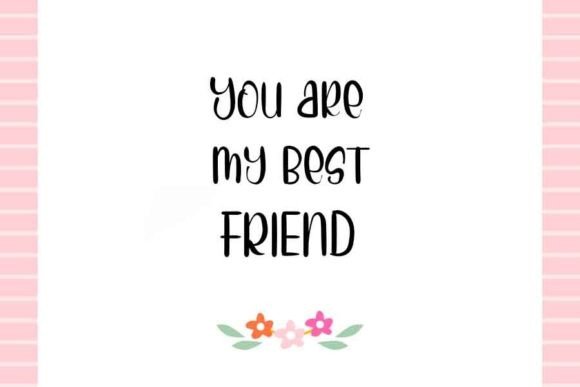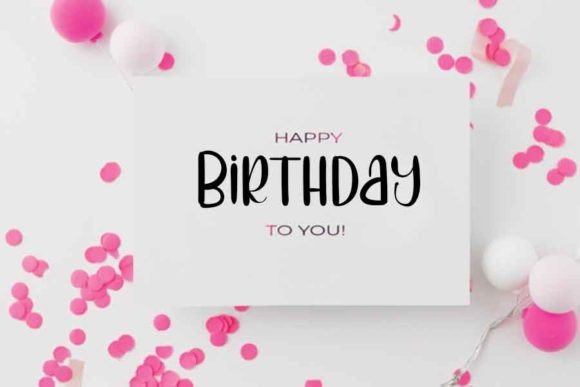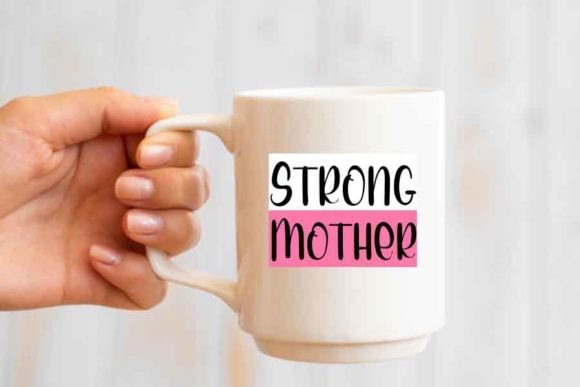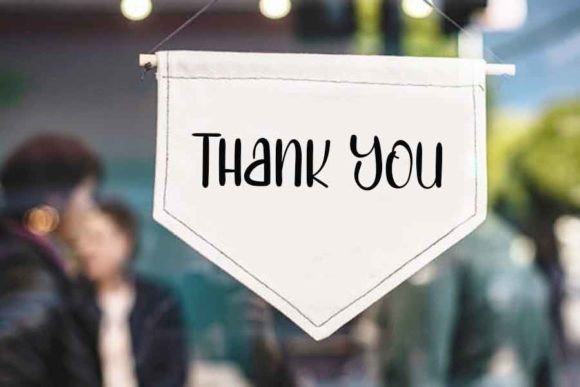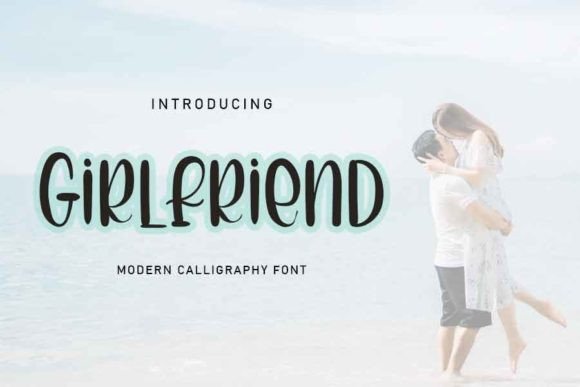
Girlfriend Font: The Perfect Addition to Your Design Arsenal
Are you tired of using the same old fonts for your design projects? Look no further than the Girlfriend Font, a cute and friendly handwritten font that’s sure to add a touch of personality to your work. In this article, we’ll dive into the world of Girlfriend Font and explore its features, uses, and benefits for designers and crafters alike.
What is Girlfriend Font?
Girlfriend Font is a playful and quirky handwritten font that’s perfect for a wide range of design projects. With its cute and friendly vibe, this font is sure to capture the attention of your audience and leave a lasting impression. Whether you’re working on a logo, branding, poster, or DIY project, Girlfriend Font is the perfect fit.
Features of Girlfriend Font
So, what makes Girlfriend Font so special? Here are just a few of its key features:
- Cute and Friendly: Girlfriend Font has a warm and approachable feel that’s perfect for designs that need a personal touch.
- Playful and Quirky: This font has a fun and playful vibe that’s sure to add some personality to your designs.
- Handwritten: Girlfriend Font is a handwritten font, giving it a unique and organic feel that’s perfect for crafty DIY projects.
- Versatile: This font is suitable for a wide range of design projects, from logos and branding to posters and social media graphics.
Uses for Girlfriend Font
So, what can you use Girlfriend Font for? The possibilities are endless! Here are a few ideas to get you started:
- Logos and Branding: Use Girlfriend Font to create a unique and memorable logo for your business or brand.
- Posters and Flyers: Add a touch of personality to your posters and flyers with this fun and playful font.
- DIY Projects: Girlfriend Font is perfect for crafty DIY projects, such as handmade cards, gift tags, and scrapbooking.
- Social Media Graphics: Use this font to create eye-catching social media graphics that will help you stand out from the crowd.
Benefits of Using Girlfriend Font
So, why should you choose Girlfriend Font for your design projects? Here are just a few benefits:
- Adds Personality: Girlfriend Font adds a touch of personality to your designs, helping you to stand out from the crowd.
- Easy to Read: This font is easy to read, even at small sizes, making it perfect for a wide range of design projects.
- Versatile: Girlfriend Font is suitable for a wide range of design projects, from formal to informal.
- Unique: This font has a unique and quirky feel that’s sure to capture the attention of your audience.
Tips for Using Girlfriend Font
Here are a few tips for using Girlfriend Font in your design projects:
- Use it Sparingly: Use Girlfriend Font sparingly to add a touch of personality to your designs.
- Pair it with Other Fonts: Pair Girlfriend Font with other fonts to create a unique and interesting contrast.
- Have Fun: Most importantly, have fun with Girlfriend Font! This font is all about adding a touch of personality to your designs, so don’t be afraid to get creative.
In conclusion, Girlfriend Font is a cute and friendly handwritten font that’s perfect for a wide range of design projects. With its playful and quirky vibe, this font is sure to add a touch of personality to your work. Whether you’re a designer or crafter, Girlfriend Font is a great addition to your arsenal. So why not give it a try and see what amazing designs you can create?